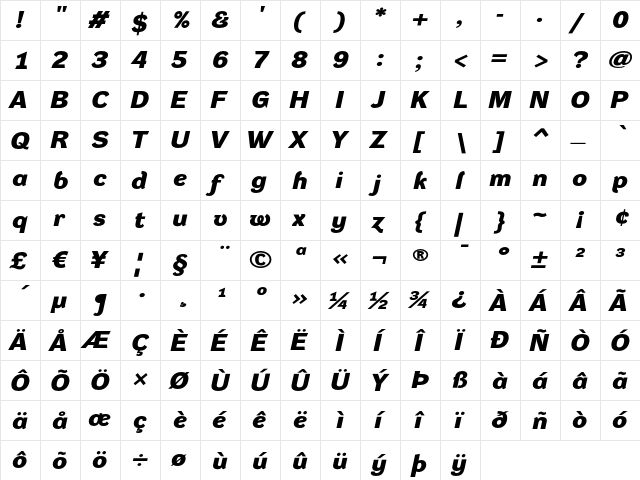
DynaGrotesk DXE Bold Italic Font Preview
Design Context for DynaGrotesk DXE Typeface
DynaGrotesk DXE takes a clean, functional approach — its unadorned letterforms prioritise legibility and work reliably across screen and print environments. The dynamic lean of this cut emphasises speed and emphasis in any layout. The heavy weight commands attention and anchors typographic hierarchies.
A strong choice for UI design, app interfaces, bold signage, and corporate brand systems.
Font Pairing: Use DynaGrotesk DXE for headlines alongside a lighter-weight sans or serif for body copy to establish clear visual hierarchy.
Pro Tip: Pair DynaGrotesk DXE with a display or serif font for headlines — its neutral character makes it an excellent supporting player in complex typographic systems.